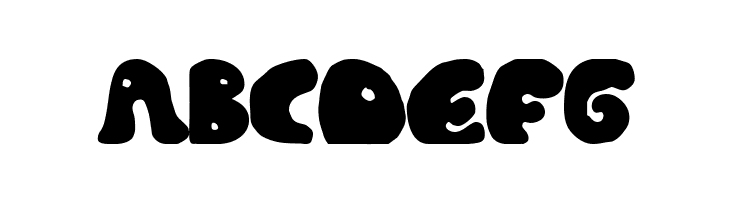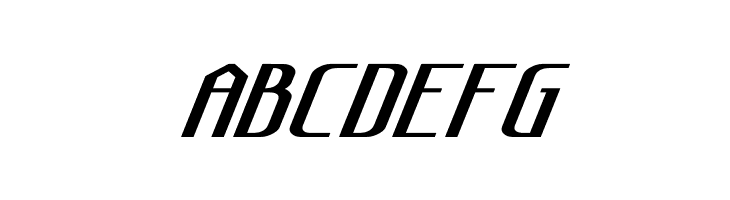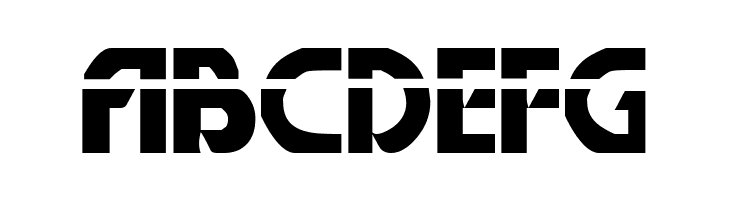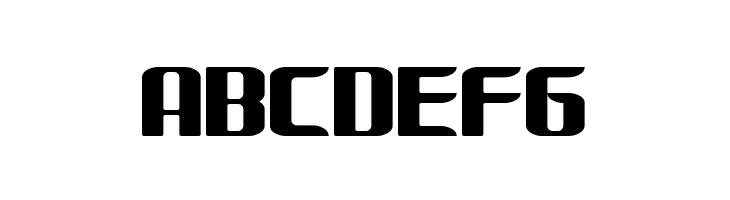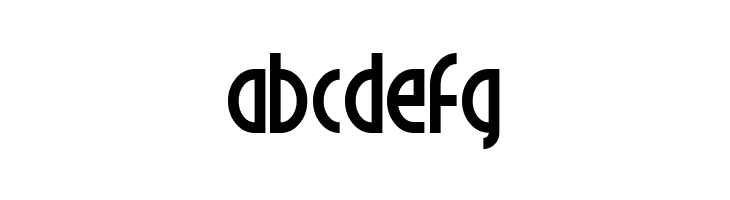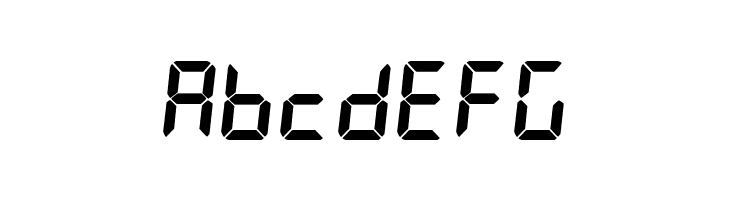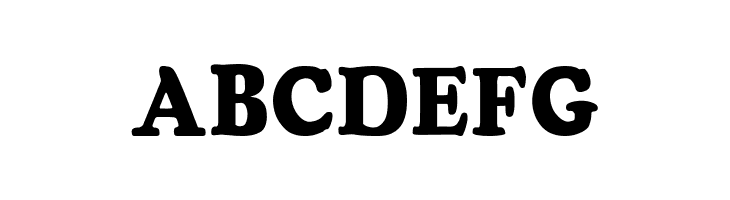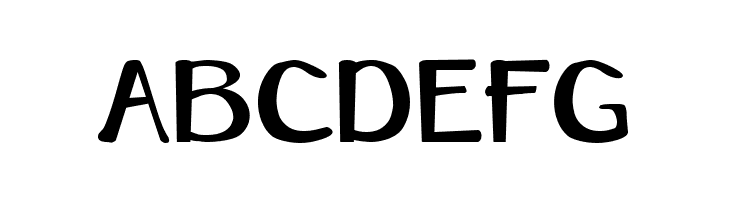
Flip Flop Font
A bold, impactful font with thick strokes and rounded edges.
BatmanForeverAlternate Font
A bold, angular font with a futuristic and geometric design.
Astro Font
Font by Kenneth Hirst
A font featuring astrological and astronomical symbols with a clean, precise style.
Gravicon Display Font
Alchemy Font
Font by Kenneth Hirst
A collection of intricate alchemical symbols with historical significance.
ACCELERATOR Font
A bold, geometric font with angular shapes and sharp edges.
SteelWolf Medium Font
A bold, geometric font with a futuristic and industrial design.
Speed Font
A bold, italicized font with a dynamic, speedy appearance.
Soopafresh Font
A bold, playful font with rounded, exaggerated curves and a dynamic style.
BODIDLYbold Font
A bold serif font with strong, authoritative strokes and pronounced serifs.
Medusa Font
Font by Altsys Metamorphosis
A bold, decorative font with intricate, mythical-inspired designs.
Gilligans Island Font
Font by Mark Riddle
A playful, hand-drawn font with a whimsical, island-themed style.
Ashbury Font
A bold, rounded font with a modern and playful style.
LiquidCrystal Font
A segmented, geometric font inspired by digital LCD displays.
WesternSlant Regular Font
A bold, slanted font with a Western style and 3D shadow effect.
Makimango Font
A bold, geometric font with thick strokes and a strong, cohesive design.
Oak Wood Font
A bold, geometric font with sharp, angular edges and a modern aesthetic.
101 Puppies Italic SW Font
A playful, italicized font with a Dalmatian spot pattern and high contrast.
TymesLittleCaps Font
John Singer - www.graphic-design.com/type/singer/default.html
A classic serif font with elegant strokes and refined character design.
Albatross Regular Font
A classic serif font with elegant and refined letterforms.